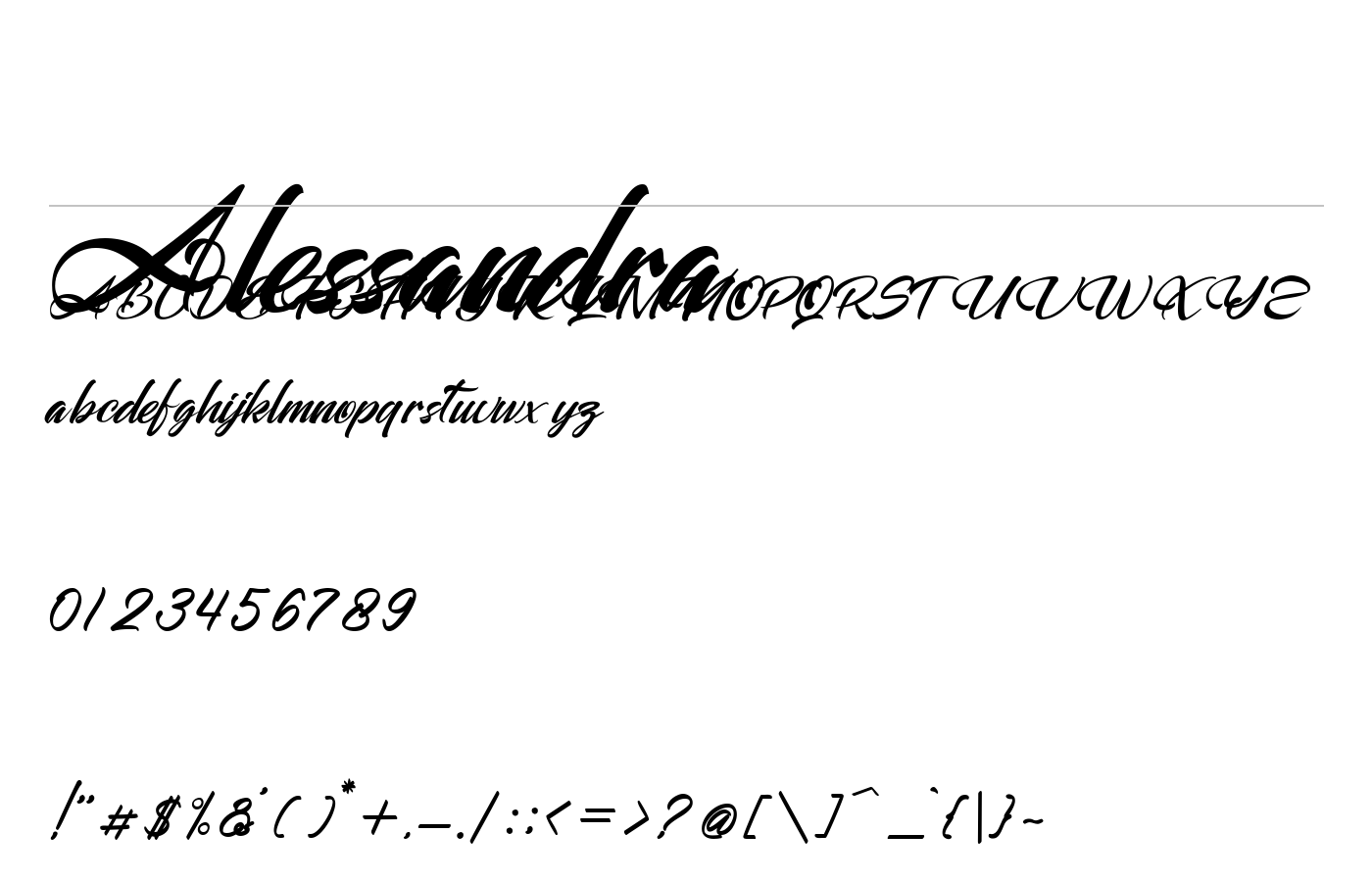
Alessandra is an elegant script font with a flowing, handwritten style characterized by its smooth, slightly condensed letterforms and moderate contrast between thick and thin strokes. Its delicate curves and connected letters give it a refined, sophisticated personality, making it perfect for luxury branding, wedding invitations, and stylish editorial design. Alessandra works best in display settings where its graceful, calligraphic charm can shine, adding a touch of classic beauty and warmth.
Alessandra Font
About Alessandra Font